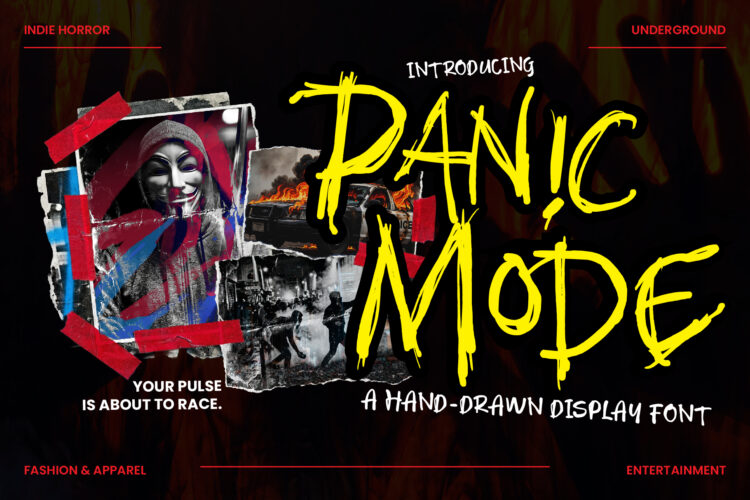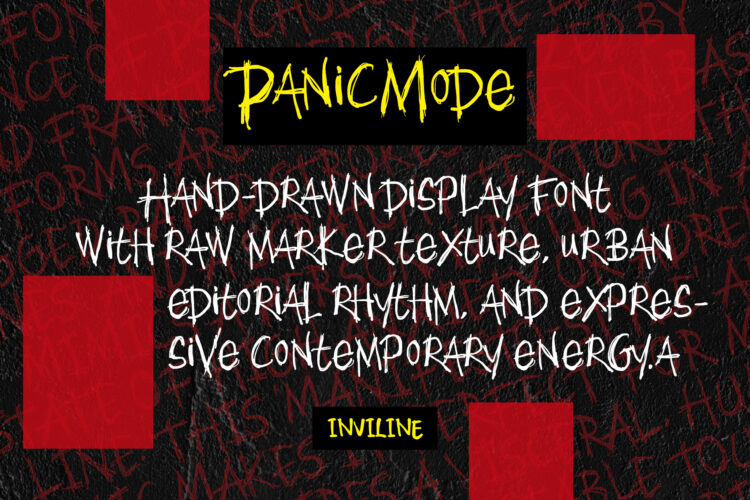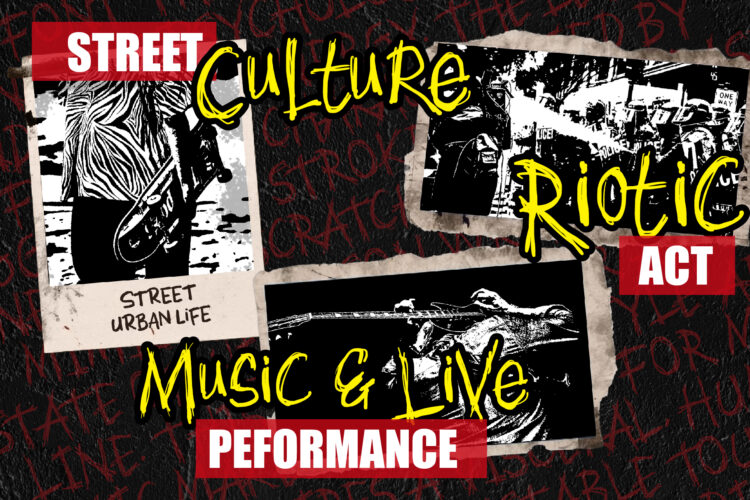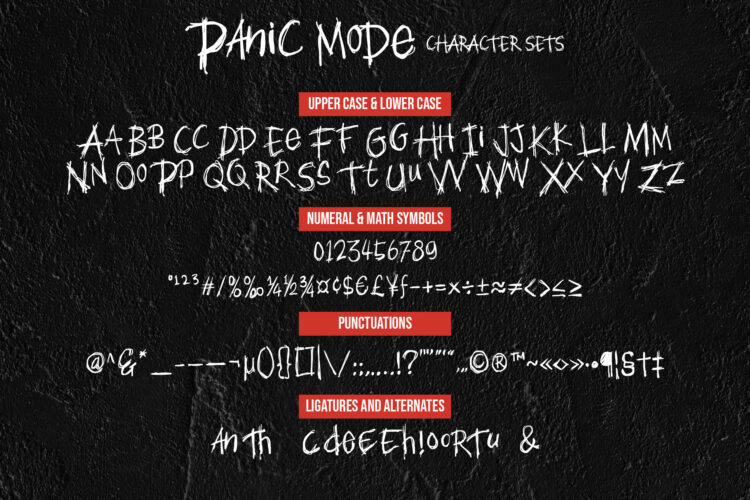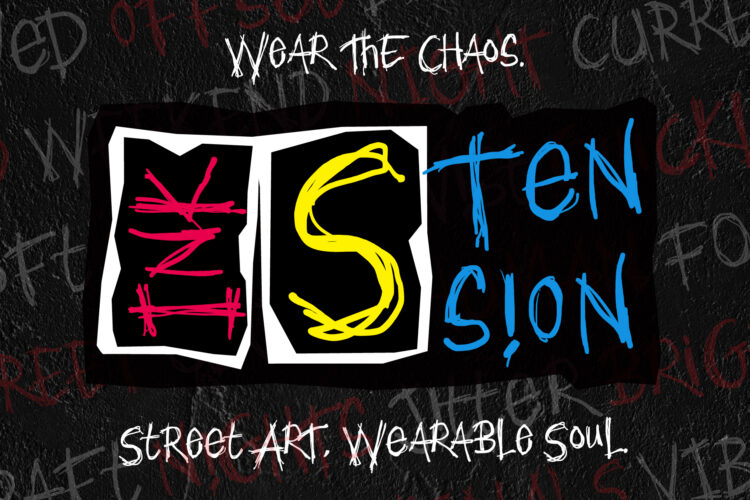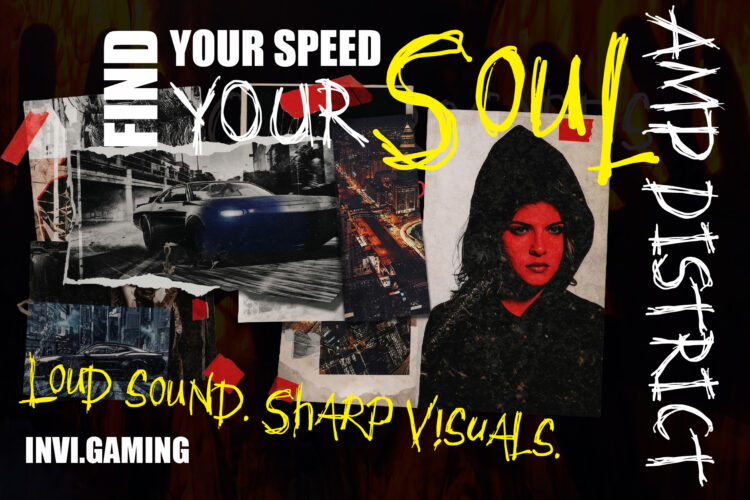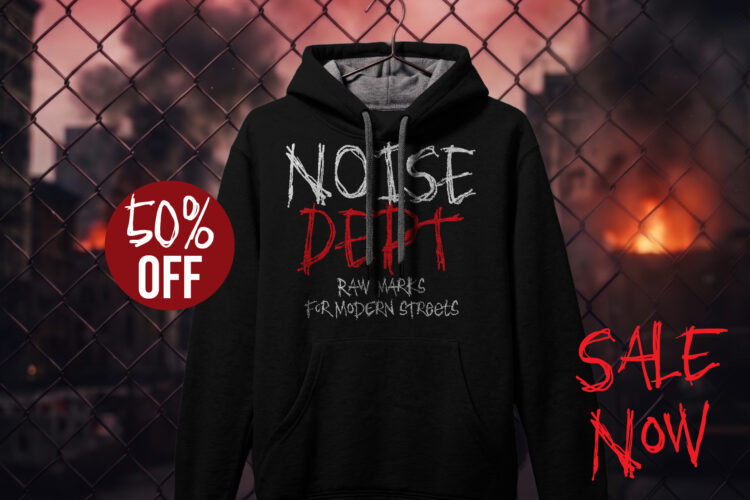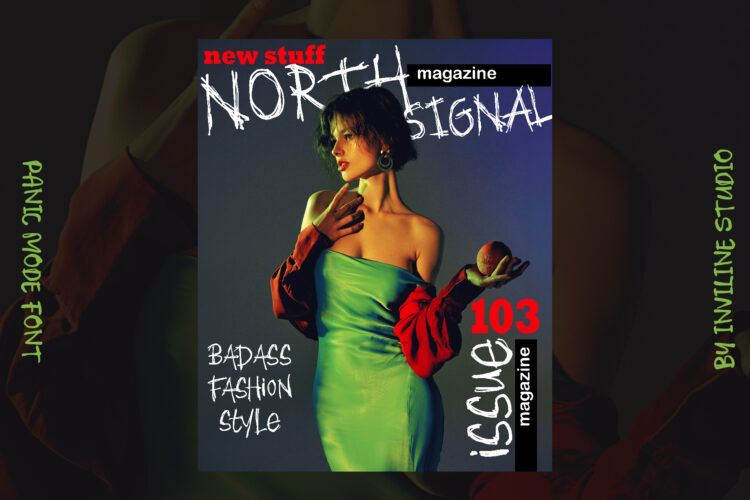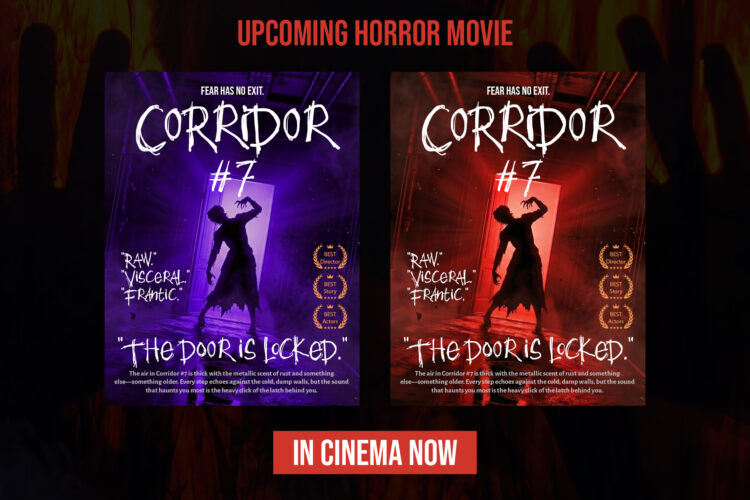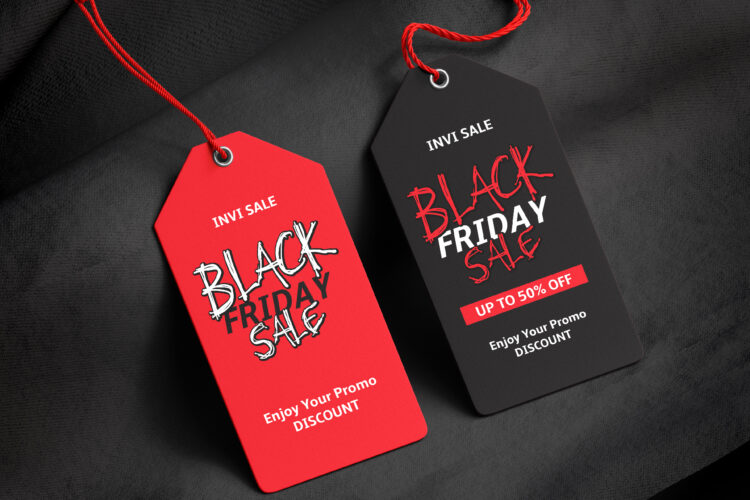
A frantic, hand-drawn display font with raw marker texture. Perfect for indie horror, streetwear apparel, and edgy editorial layouts.
Your pulse is about to race. Panic Mode is a visceral, hand-drawn display font created by Inviline Studio. Built fast and meant to be worn louder, this typeface features an aggressive raw marker texture and a frantic urban rhythm. It completely embraces the “Chaotic Script” trend, offering a rebellious edge to designers who want to break the grid and command attention.
Key Features
- Raw Marker Texture:Â Highly detailed, bleeding ink aesthetics preserved in every stroke.
- Stylistic Alternates & Ligatures:Â Smart OpenType features that swap standard letters to create an unpredictable, genuinely hand-scrawled look.
- Upper & Lowercase Variations:Â Mix and match cases to maximize the chaotic energy.
Ideal For / Use Cases
- Underground streetwear and “badass” fashion apparel.
- Indie horror movies, gaming graphics, and thriller book covers.
- Live music performances, punk/grunge event posters, and urban street culture.